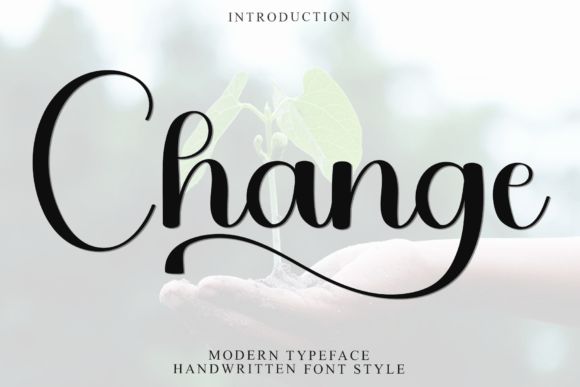
Revolutionize Your Designs with Change Font
Remember that moment when you stumbled upon the perfect font for your art project? The one that perfectly captured the essence of your creative vision and took your design from ordinary to extraordinary? For designers, finding the right font can be a game-changer. It’s like discovering a hidden treasure that elevates your work to new heights.
Enter Change Font, a beautiful and eye-catching font designed to add a unique touch to your designs. With its soft strokes and distinctive character, this font is perfect for design projects, crafts, and other creative works. Whether you’re working on a digital project or a physical craft, Change Font is a valuable addition to your toolkit.
Key Features of Change Font
For more control, click on the “Typography” tab and adjust the font size, color, and alignment to suit your design needs.
In Adobe Photoshop or Illustrator, select the text layer you want to modify and use the “Edit” menu to access the font options. Choose a font from the list of available fonts and adjust the font size, color, and style to suit your design needs.
Use the “Character” panel to access more advanced font options, such as font family, font style, and font size.
In PowerPoint or Word, select the text you want to modify and use the “Home” tab to access the font options. Choose a font from the list of available fonts and adjust the font size, color, and style to suit your design needs.
Use the “Font” group to access more advanced font options, such as font family, font style, and font size.
Changing font is a crucial aspect of design, and it’s used in various scenarios, such as:
- Creating visual hierarchy in a design
- Adding emphasis to specific text
- Matching font styles across a brand
When changing font, keep the following tips in mind:
- Choose a font that is legible and easy to read
- Use font sizes and styles consistently throughout the design
- Experiment with different font combinations to find the perfect fit
Alternatives to “Change Font” for Designers
1. Font Sizing
Font sizing is a more specific and detailed approach to modifying font styles. It involves adjusting the font size, line height, and letter spacing to achieve a desired visual effect. This method is ideal for designers who need to fine-tune their typography to create a consistent and harmonious visual language.
font-weight: 600;.How do I use a custom font in my design?